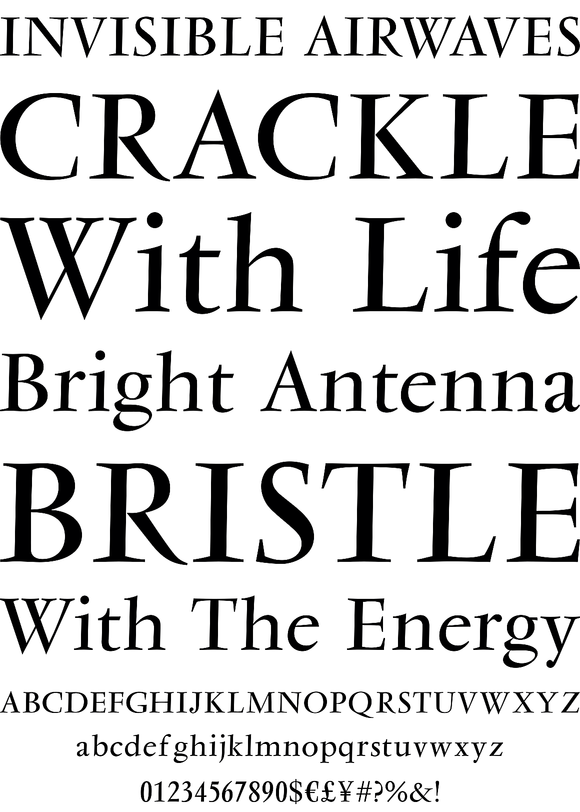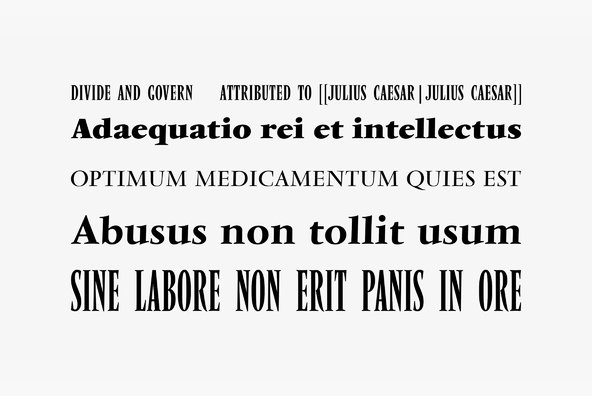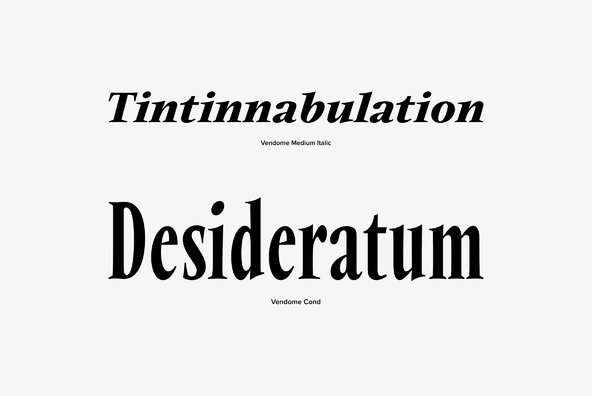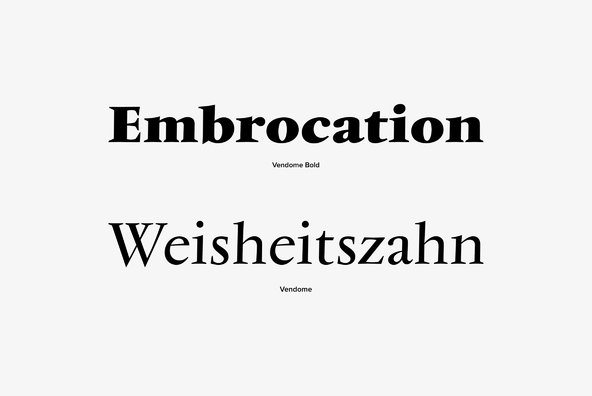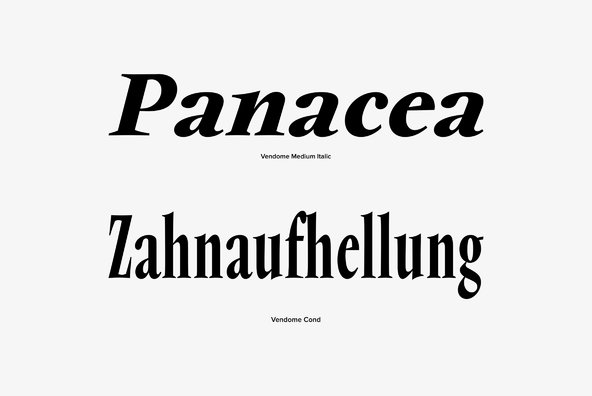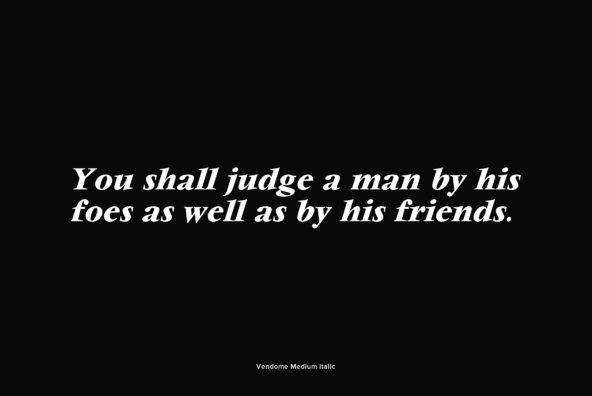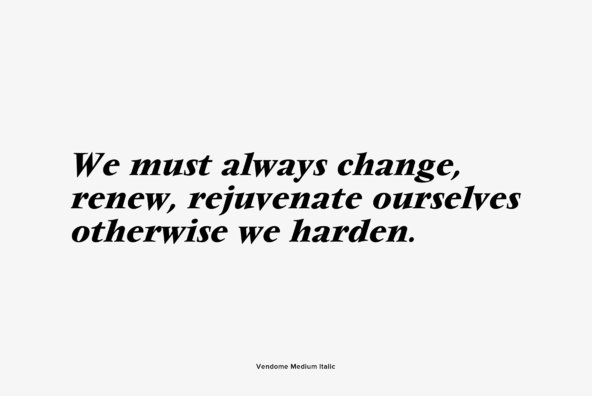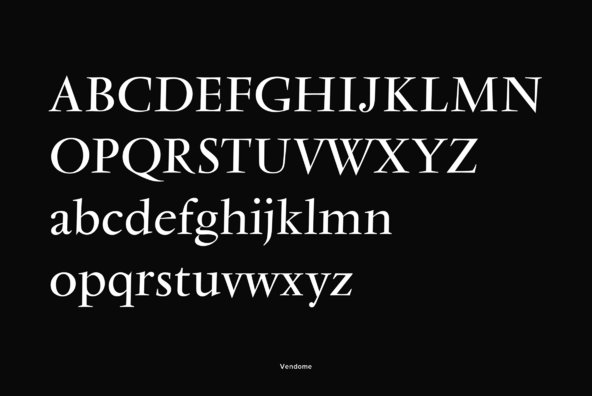
Vendome
Designd by Francois Ganeau, Vendome is an intense and sharp serif design. It works great in header uses, and even holds an interesting sense of fashion and style when set in large sizes.